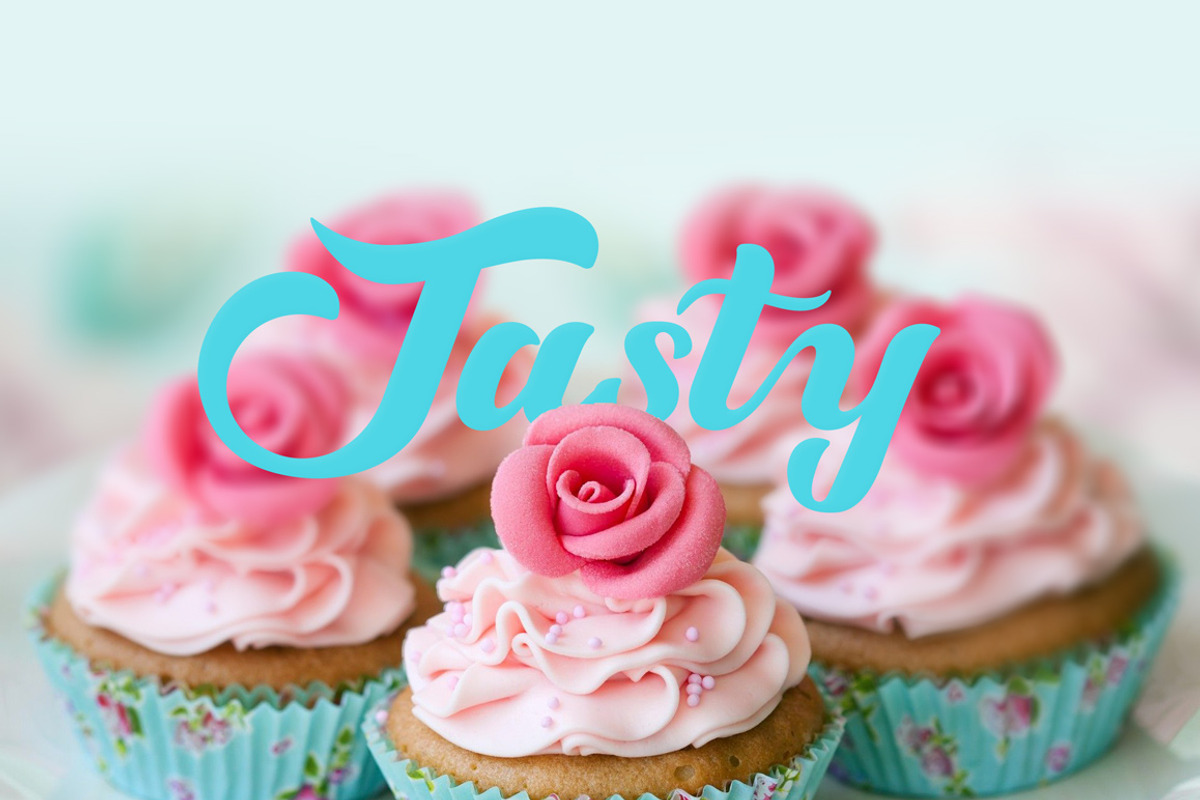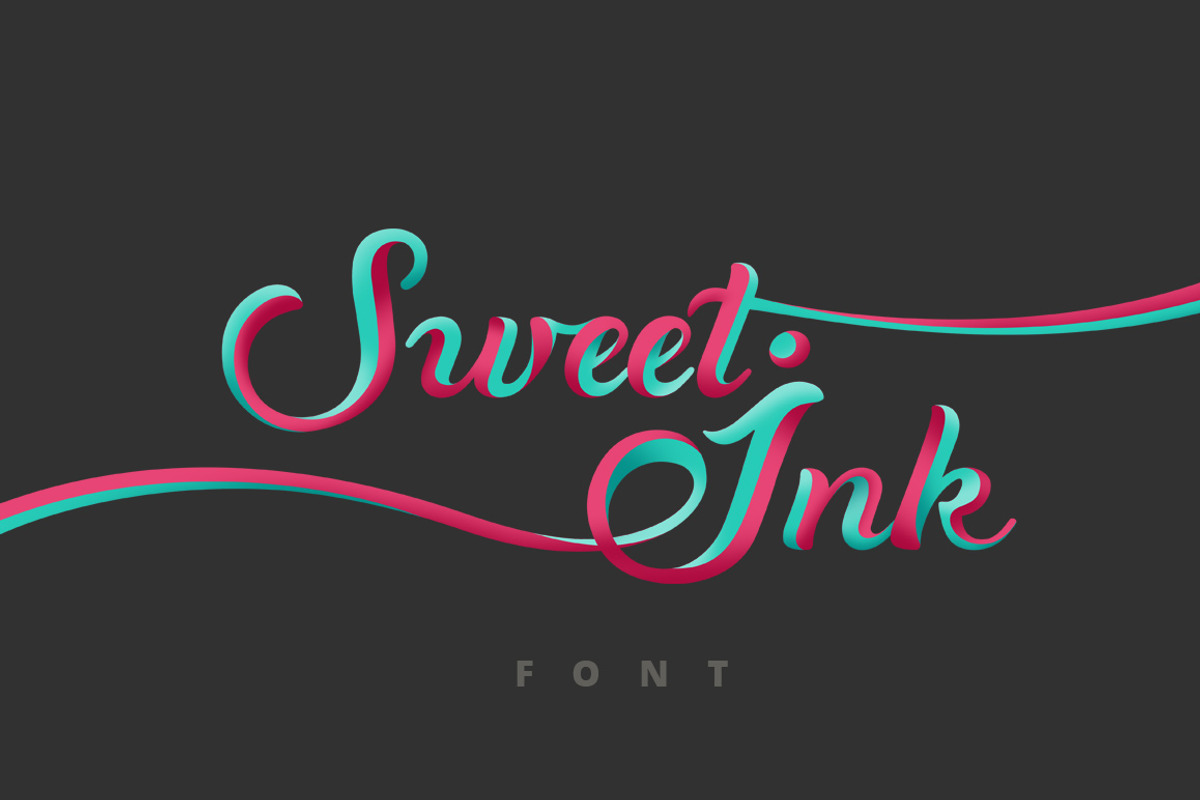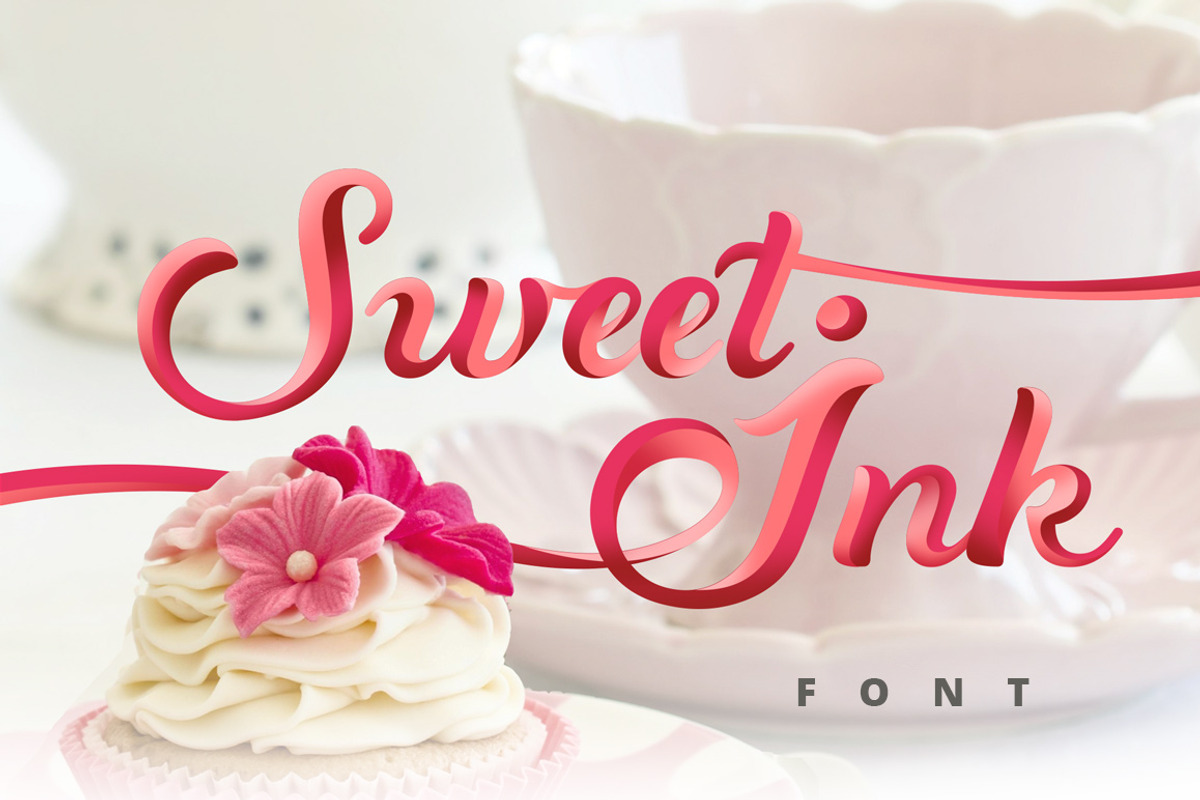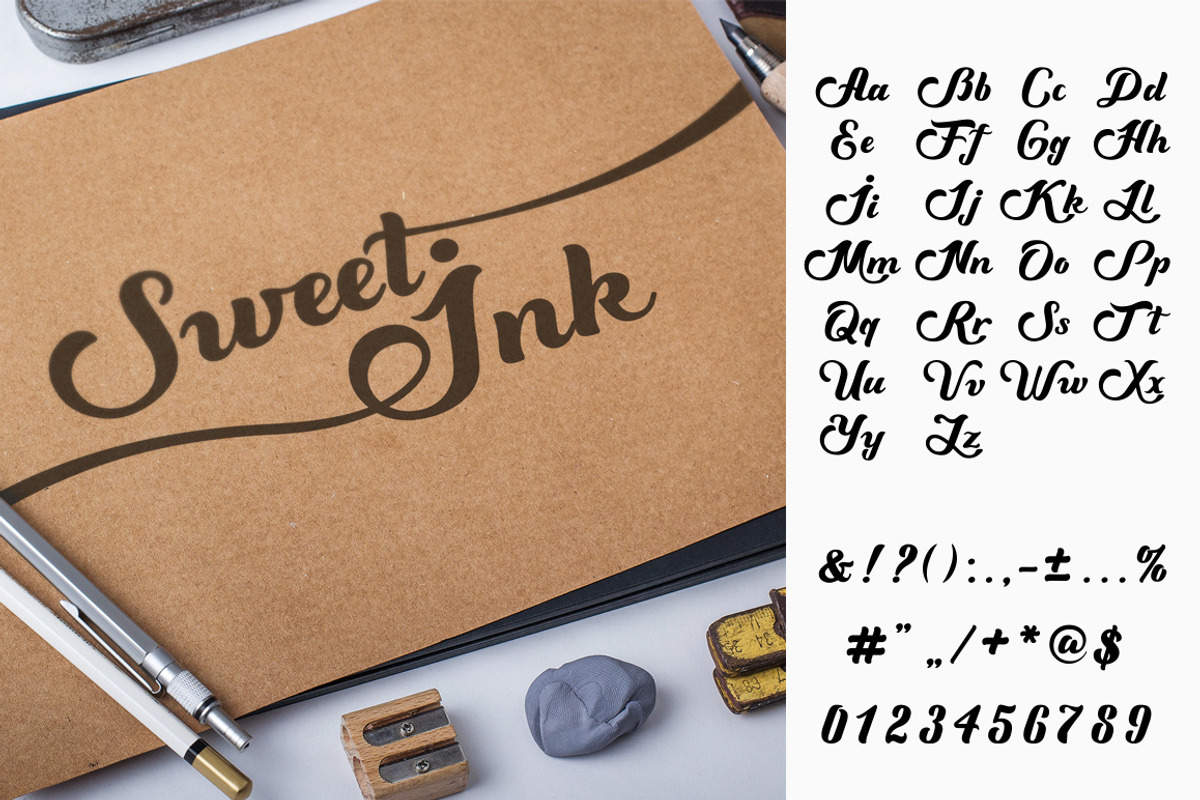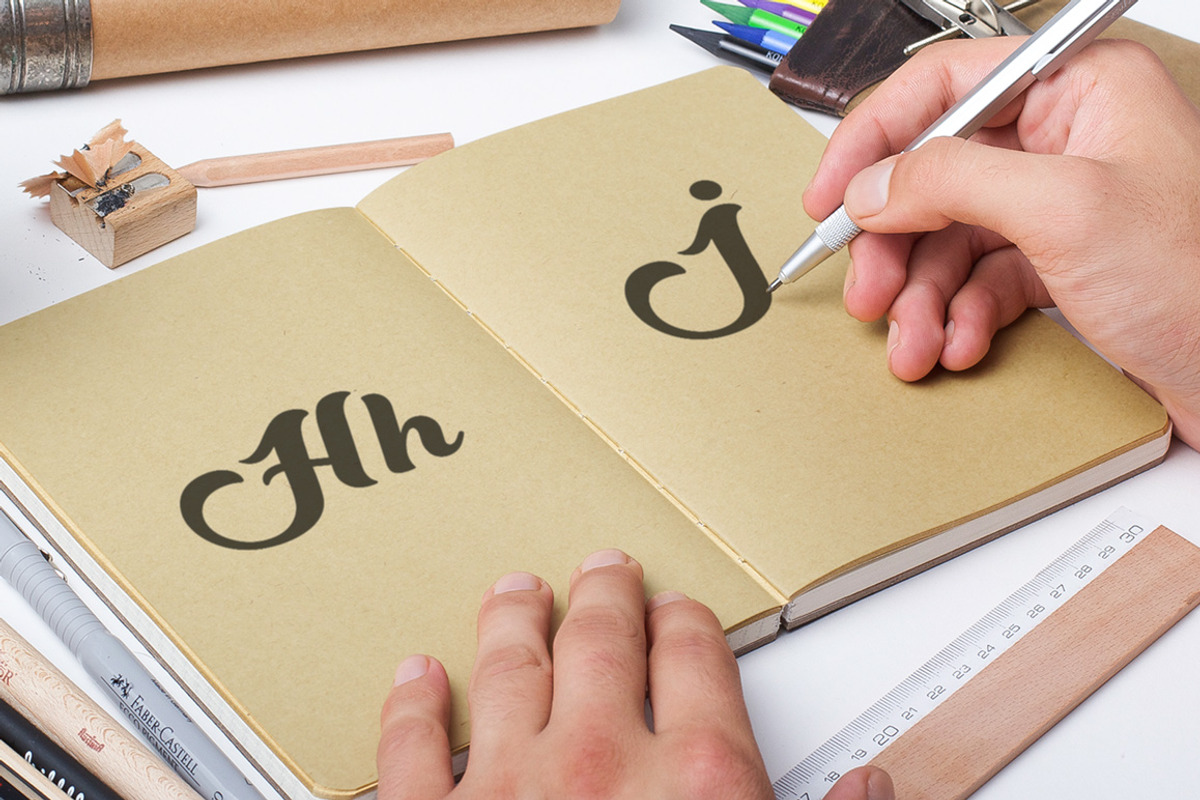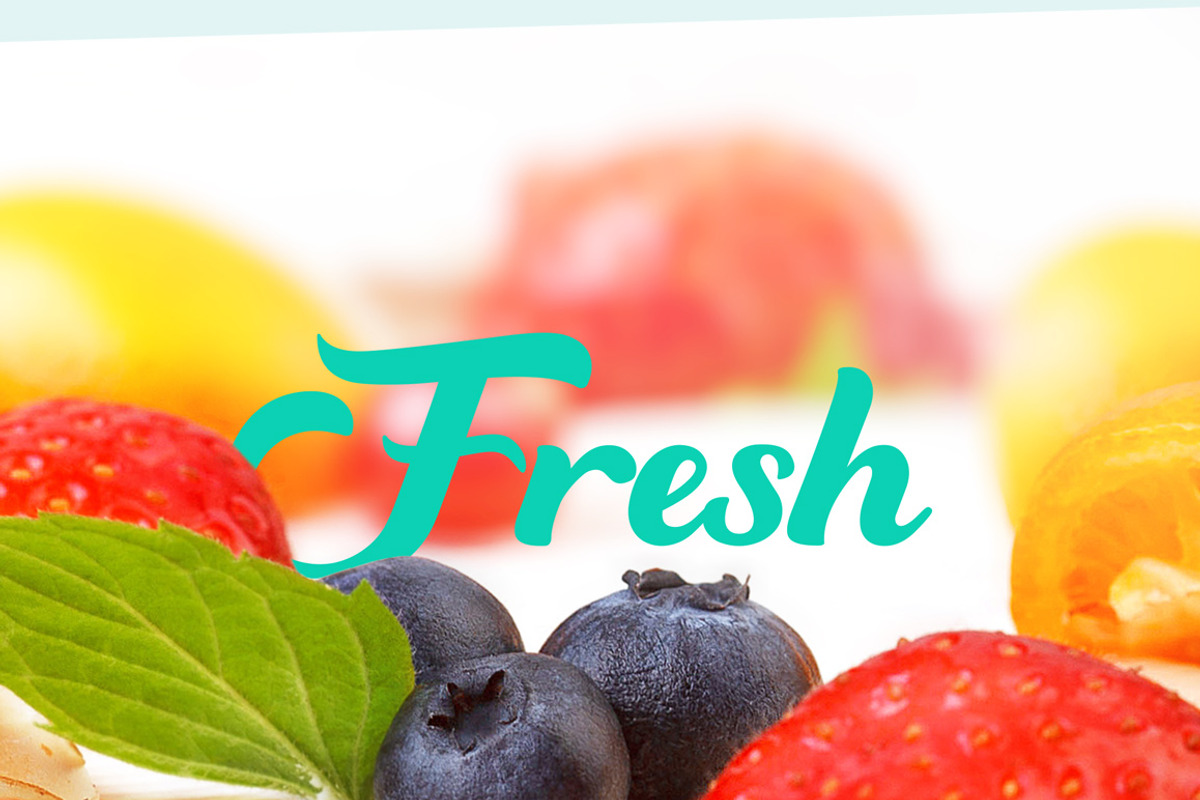
Sweet Ink Font Calligraphy
Sweet Ink Font Calligraphy by Sentavio is a font selected for branding, posters, packaging, typography.
- Stylish and Elegant Sweet Ink font can be used at many areas such as: Food (especially Sweets & Coffee) , Package, Fashion, Beauty etc.
Why Sweet Ink Font Calligraphy is worth a look
Sweet Ink Font Calligraphy by Sentavio fits naturally into Branding, posters, packaging, typography.